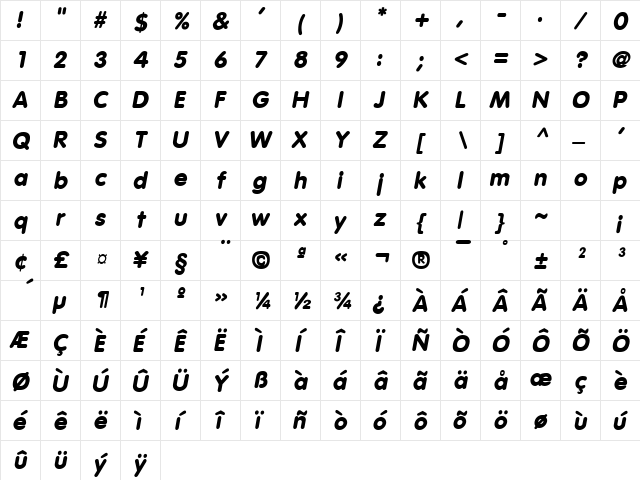
ESF-Rounded Bold-Italic Font Preview
Design Context for ESF-Rounded Typeface
ESF-Rounded uses gentle rounded endings to create a warm, inviting typographic personality — less corporate than geometric sans, more refined than playful display fonts. Its italic angle brings a sense of urgency and motion to the letterforms. The heavy weight commands attention and anchors typographic hierarchies.
Well-suited to UI design, mobile interfaces, and any brand that wants approachability without sacrificing clarity.
Font Pairing: Pairs well with a rounded or humanist sans for body copy, maintaining the friendly tone without relying on ESF-Rounded to carry extended reading.
Pro Tip: Use ESF-Rounded for UI elements, app interfaces, and anywhere a friendly, approachable tone needs to be maintained without sacrificing clarity.